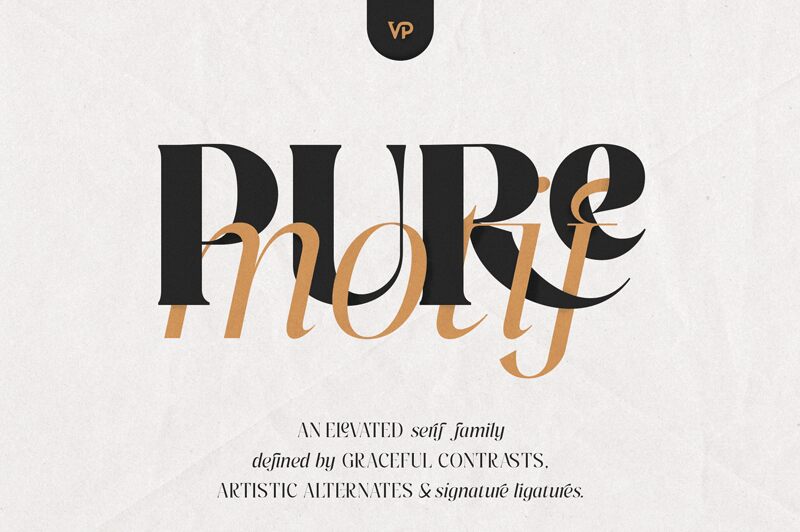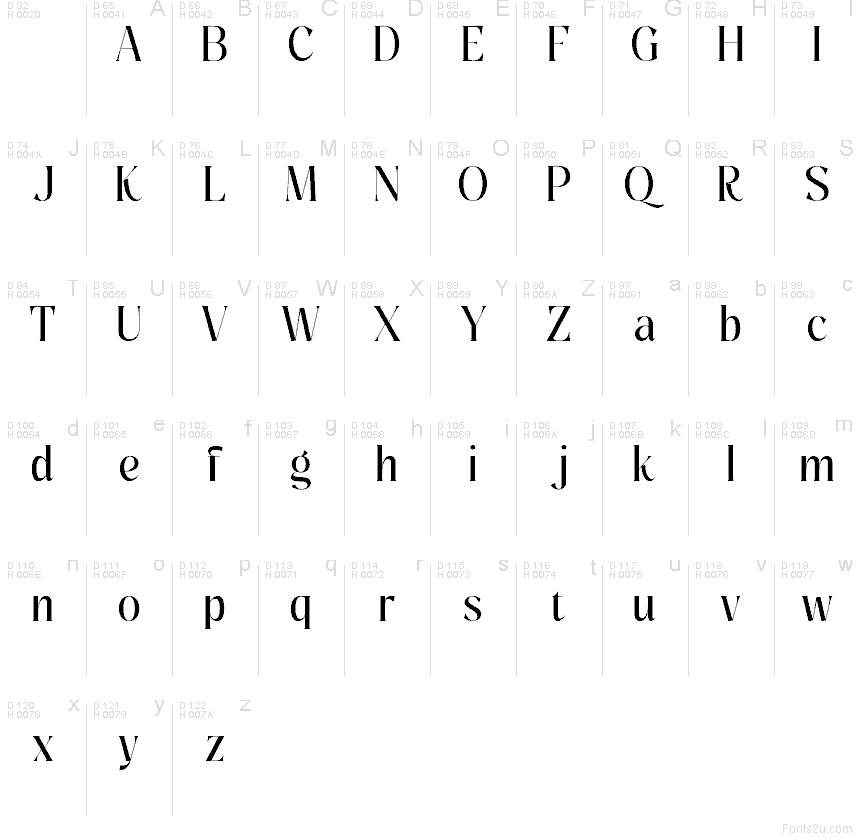
Pure Motif Regular
Pure Motif font by VPcreativeshop is a free serif typeface that feels like it walked straight off a fashion runway. Its letters are tall and slim with inky, tapering strokes and razor-fine lines that flare unexpectedly, giving each word a poised, editorial stance. The spacing is tight yet controlled, so headlines look sculpted rather than set, like they’ve been carefully brushed onto the page.
Using Pure Motif, you can bring that luxe, magazine-quality tension to branding, lookbooks, posters, packaging, and hero graphics on websites. This free font shines on large titles where its refined details can breathe, while short subheads can echo that same elegance. Pair it with a clean, neutral sans serif at smaller sizes to keep layouts crisp and contemporary.